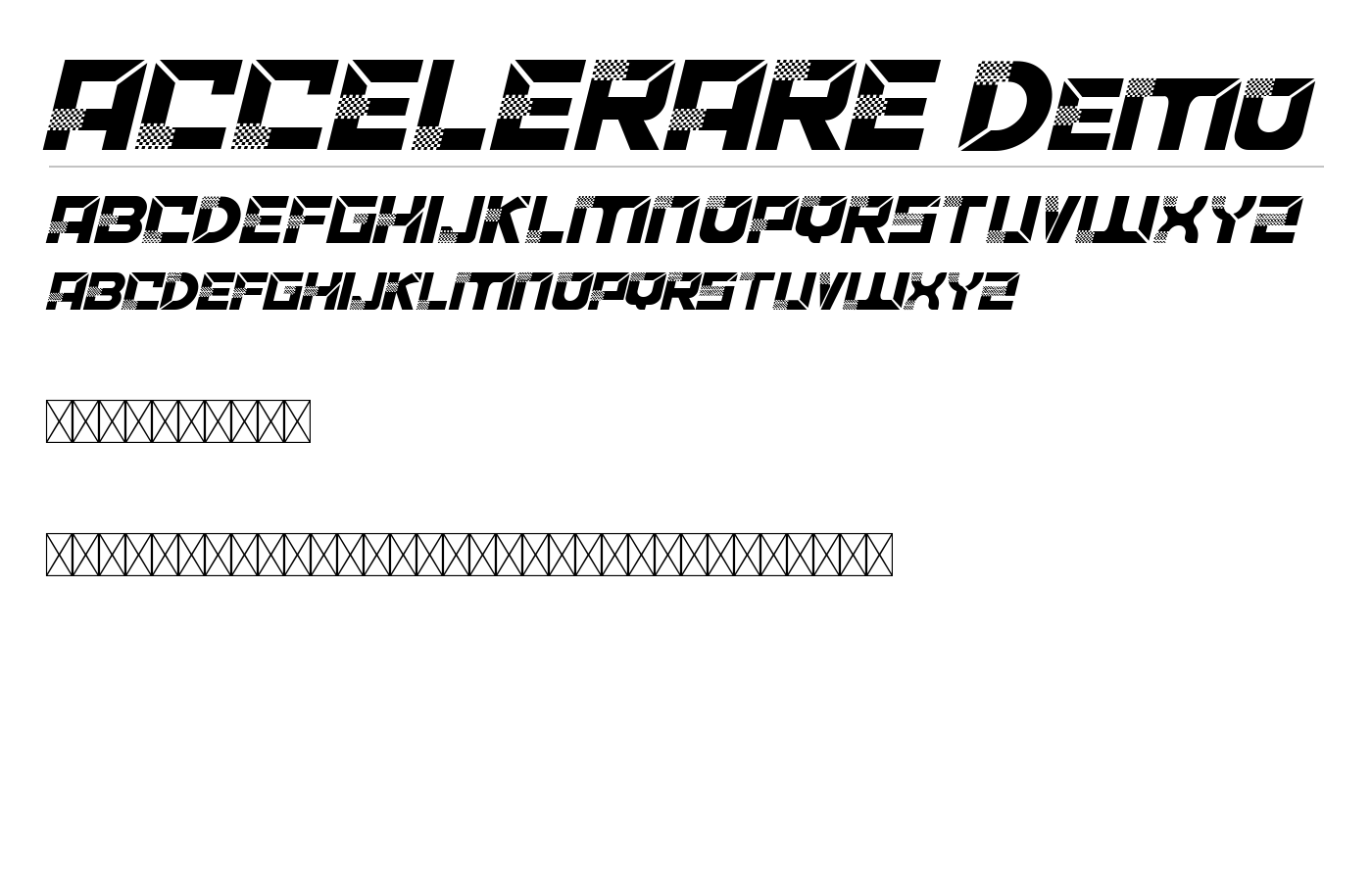
ACCELERARE Demo is a bold, condensed sans serif font with a dynamic, futuristic style that features sharp angles and a distinctive checkered pattern effect suggesting speed and motion. Its uppercase-only design and geometric letterforms make it ideal for eye-catching headlines, sports branding, tech logos, and projects that want to convey energy and modernity with a sporty edge. This font works best in display use where impact and a sense of acceleration are desired.
ACCELERARE Demo Font
About ACCELERARE Demo Font
| Font family | ACCELERARE Demo Font |
| Designer | Muhamad Lukman fauzi |